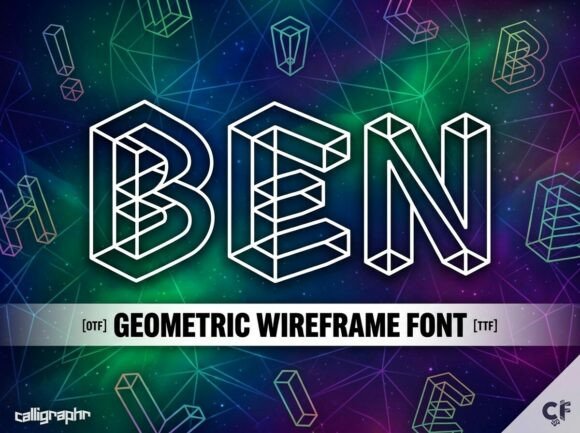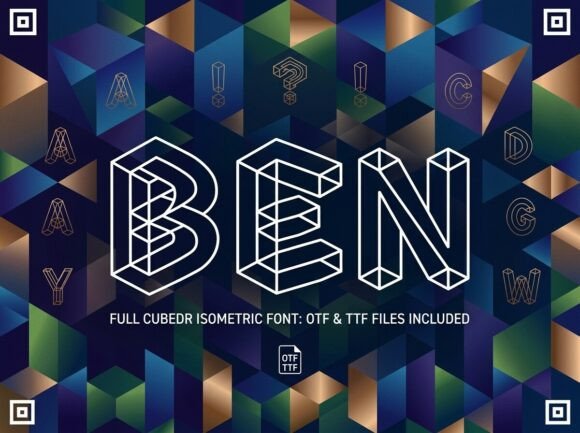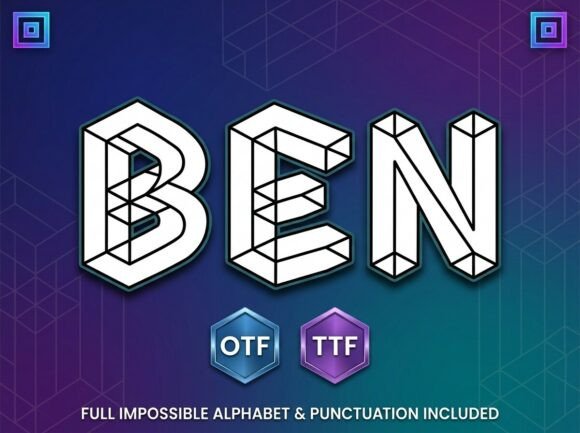
Unlocking the Paradoxical Soul of Ben Font: A Mind-Bending Display Typeface
In the realm of typography, few fonts have managed to capture the essence of paradox and intrigue as effectively as Ben Font. This bold, 3D display typeface is an optical illusion masterclass, where intersecting planes and geometric angles seemingly defy the laws of physics. With its unique blend of crisp white faces and rhythmic wireframe depth, Ben Font has emerged as the premier choice for designers seeking to make a statement in indie game branding, tech-puzzle logos, modern architecture firm identities, and high-impact social media headers.
The Birth of an Optical Illusion
Ben Font’s design is rooted in the concept of “impossible objects,” a term coined by cognitive psychologist Edgar Rubin to describe shapes that cannot exist in reality. By cleverly manipulating geometric forms and perspectives, the creators of Ben Font have given life to a typeface that appears to shift and morph as you gaze at it. This mind-bending effect is not just aesthetically striking; it also challenges the viewer’s perception, making it an engaging and memorable experience.
Deconstructing Ben Font’s Unique Features
So, what makes Ben Font stand out from the crowd? Here are a few key features that contribute to its distinctive character:
- Bold, 3D Letterforms: Ben Font’s letters are constructed using bold, 3D shapes that give the font its imposing presence.
- Impossible Objects: The font’s letterforms are designed as impossible objects, creating a sense of visual tension and fascination.
- Crisp White Faces: The clean, white surfaces of the letters provide a striking contrast to the wireframe depth, adding to the font’s visual impact.
- Rhythmic Wireframe Depth: The wireframe structure of the font creates a sense of rhythm and flow, drawing the viewer’s eye through the text.
Applications for Ben Font: Where Paradox Meets Creativity
Ben Font’s unique character makes it an excellent choice for a variety of design applications, including:
- Indie Game Branding: Ben Font’s bold, attention-grabbing design makes it perfect for indie game logos, adding a touch of edginess and sophistication to your game’s identity.
- Tech-Puzzle Logos: The font’s paradoxical nature makes it an excellent fit for tech-puzzle logos, where complexity and innovation are key.
- Modern Architecture Firm Identities: Ben Font’s futuristic, 3D design lends itself well to modern architecture firm identities, conveying a sense of innovation and forward thinking.
- High-Impact Social Media Headers: The font’s bold, eye-catching design makes it perfect for social media headers, where you want to make a statement and grab the viewer’s attention.
Tips for Working with Ben Font
To get the most out of Ben Font, here are a few tips to keep in mind:
- Use it sparingly: Due to its bold, attention-grabbing design, Ben Font is best used sparingly to avoid overwhelming the viewer.
- Experiment with color: Ben Font’s crisp white faces provide a versatile canvas for experimenting with different colors and textures.
- Play with perspective: Don’t be afraid to experiment with different perspectives and angles to enhance the font’s 3D effect.
Ben Font is a true original in the world of typography, offering a unique blend of paradox, intrigue, and visual impact. Whether you’re a designer, craftsperson, or simply someone who appreciates innovative design, Ben Font is definitely worth exploring. With its bold, 3D letterforms and impossible objects, this mind-bending display typeface is sure to challenge reality and inspire creativity.